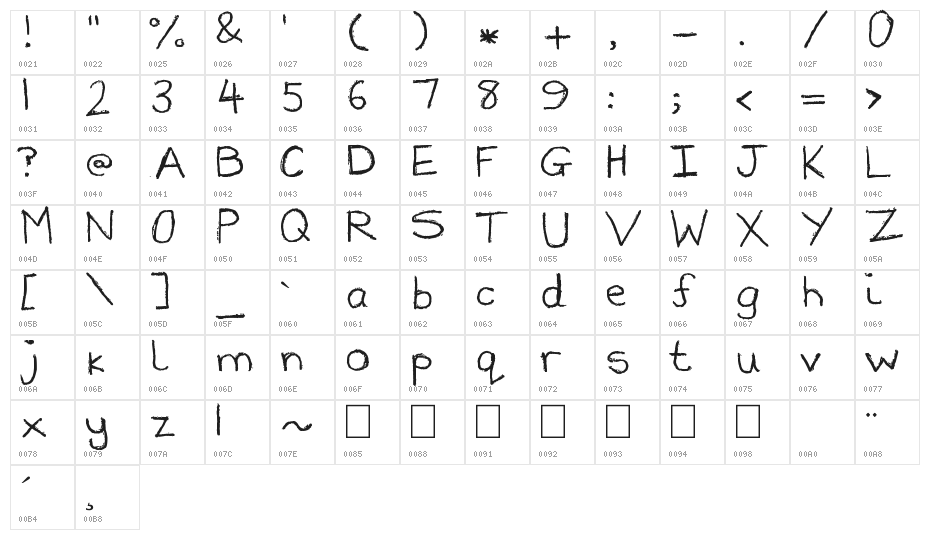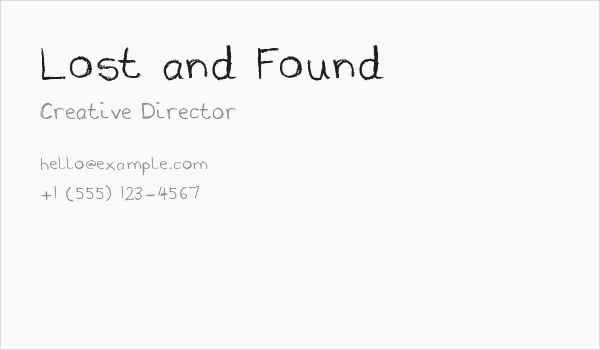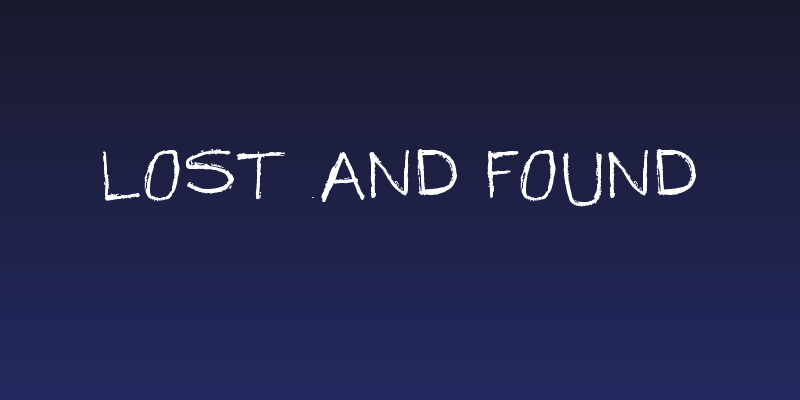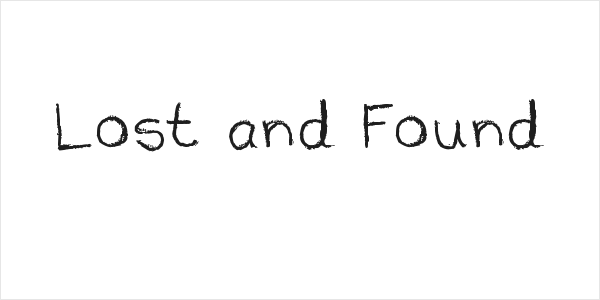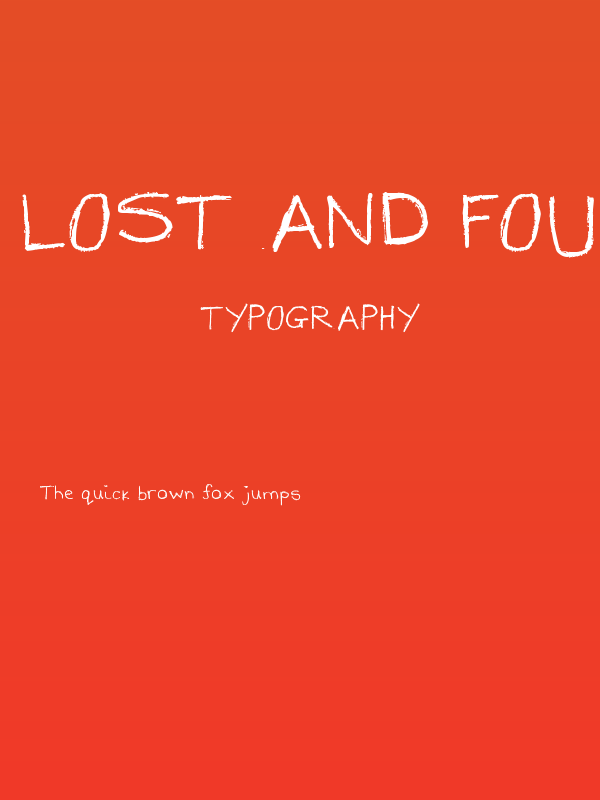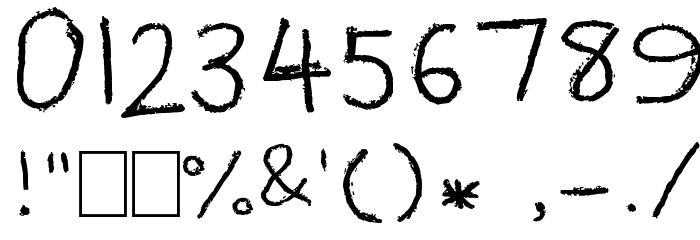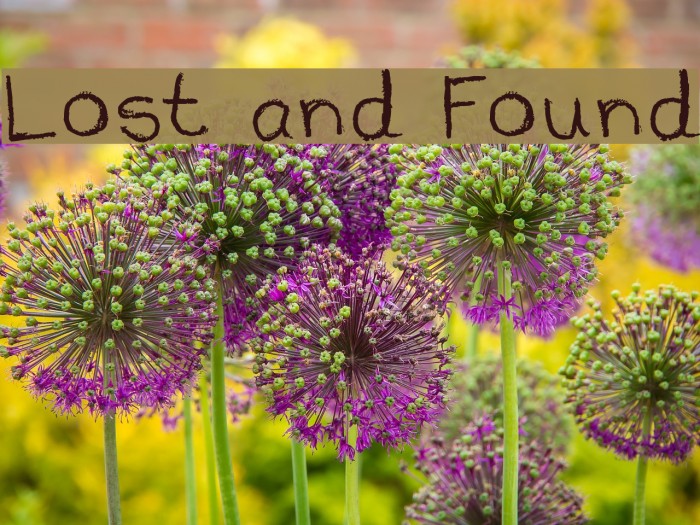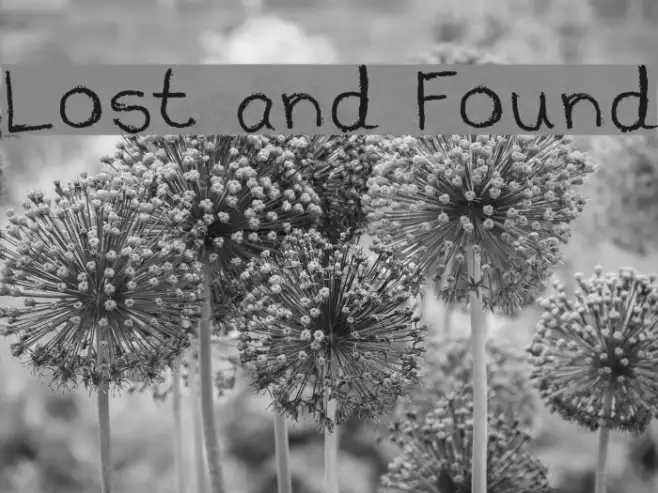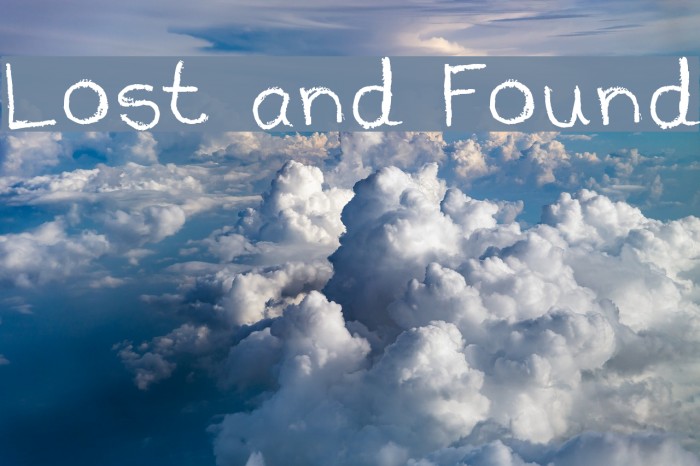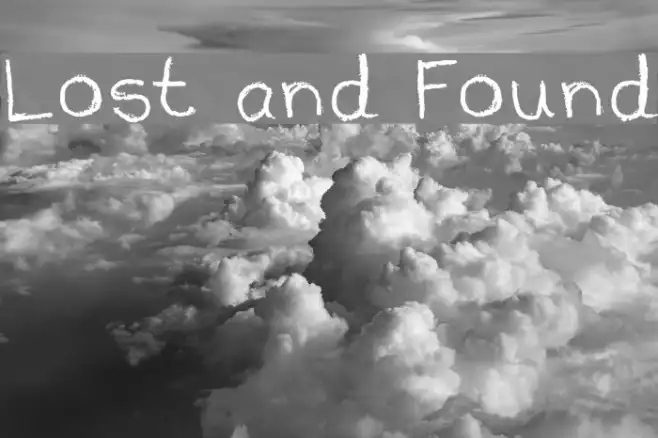
Lost and Found Font
Lost and Found Description
This font features a playful, handwritten style with a rough, textured appearance reminiscent of chalk or crayon. The characters are slightly irregular, adding a casual and informal feel. The uppercase letters are bold and prominent, while the lowercase letters maintain a consistent flow with rounded edges. Numbers and special characters follow the same textured style, ensuring uniformity across the font. The overall design is approachable and friendly, making it suitable for creative and informal projects.
| Use Case | Headlines, Creative projects, Informal text |
| Proposed Projects | Ideal for children's books, educational materials, playful branding, and creative posters. |